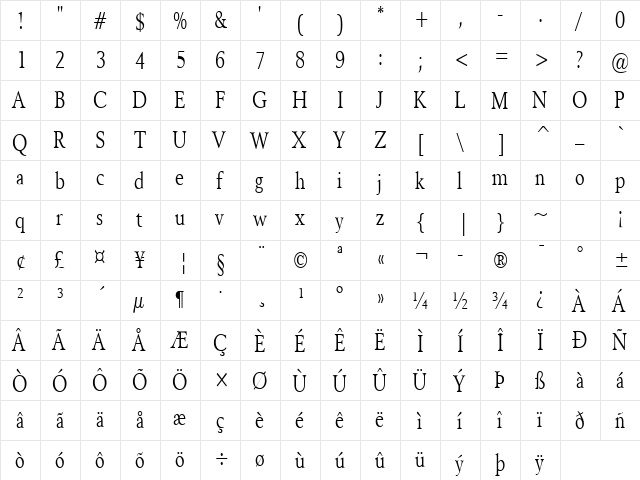
Revive 8-Condensed Normal
Design Context for Revive 8-Condensed Typeface
Revive 8-Condensed offers clean, dependable letterforms without strong stylistic allegiance, making it a practical choice for designers who need flexibility. The condensed width makes it efficient for tight spaces without sacrificing legibility.
Pro Tip: Pair Revive 8-Condensed with a font of contrasting weight or personality to build a more expressive typographic hierarchy.